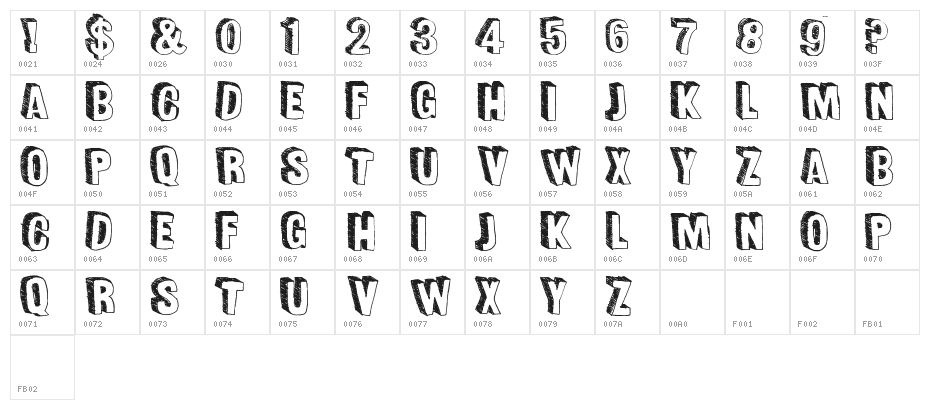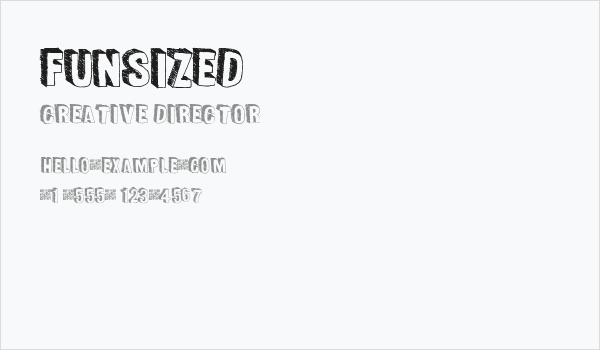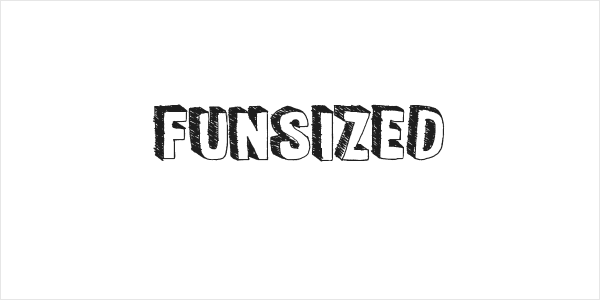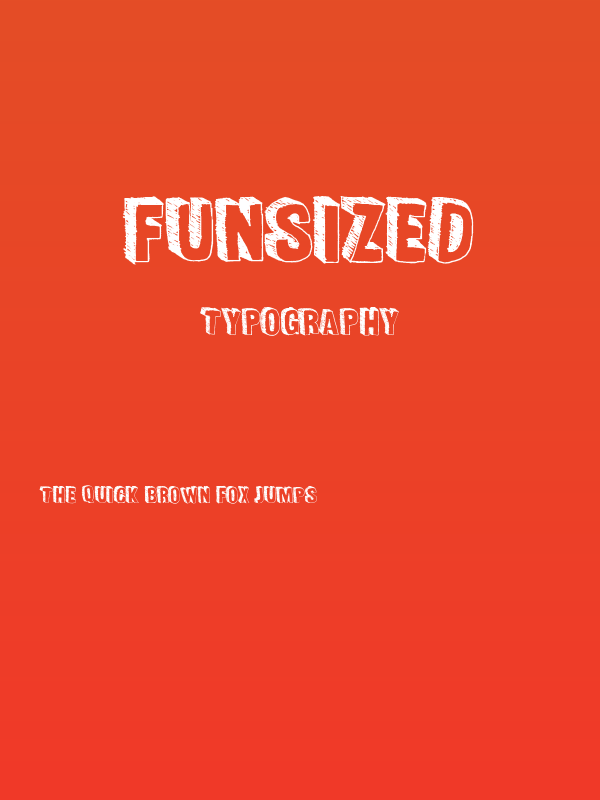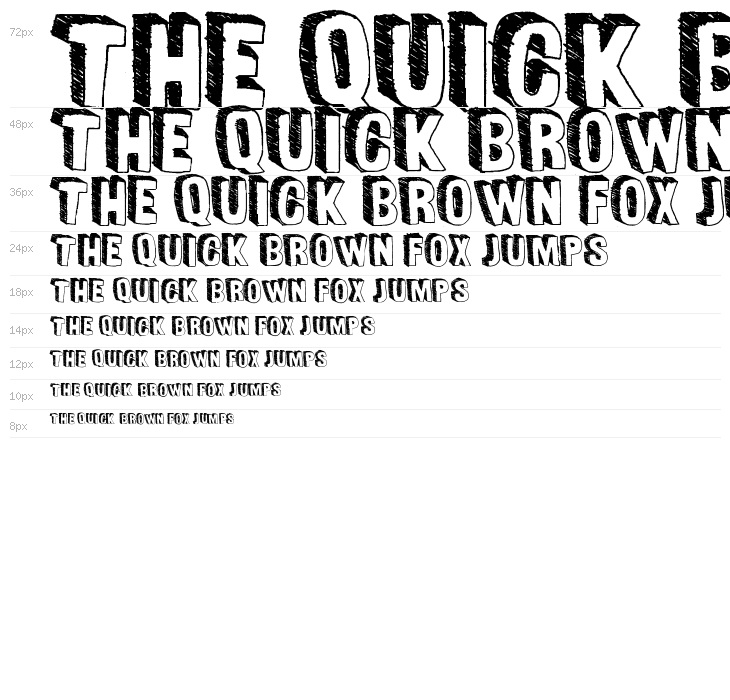
FunSized Font
FunSized Description
This font features a playful and bold style with a hand-drawn, textured appearance. Each character is outlined with a thick, uneven stroke, giving it a dynamic and lively feel. The letters are uppercase and lowercase, with numbers and a selection of special characters. The texture within each character resembles a sketch or doodle, adding a casual and artistic touch. This font is ideal for projects that require a fun and informal look, such as children's books, posters, or creative branding. The overall design is eye-catching and full of personality, making it suitable for headlines and display purposes.
Overall StylePlayful, Artistic
Use CaseHeadlines, Display, Creative projects
Proposed ProjectsIdeal for children's books, posters, creative branding, and playful designs.